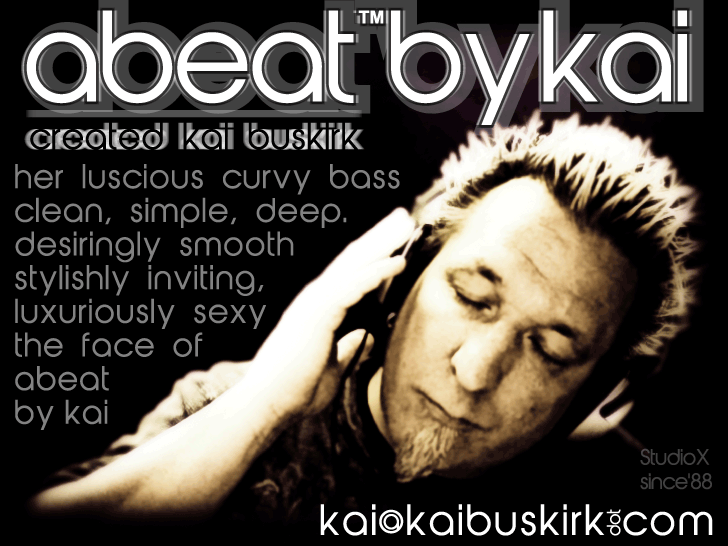
Preview and download Abeat by Kai Font. Created by StudioXGroup.com in Basic Sans serif styles with Free for personal use license.
her luscious curvy bass clean, simple, deep. desiringly smooth stylishly inviting, luxuriously sexy the face of abeat by kai |